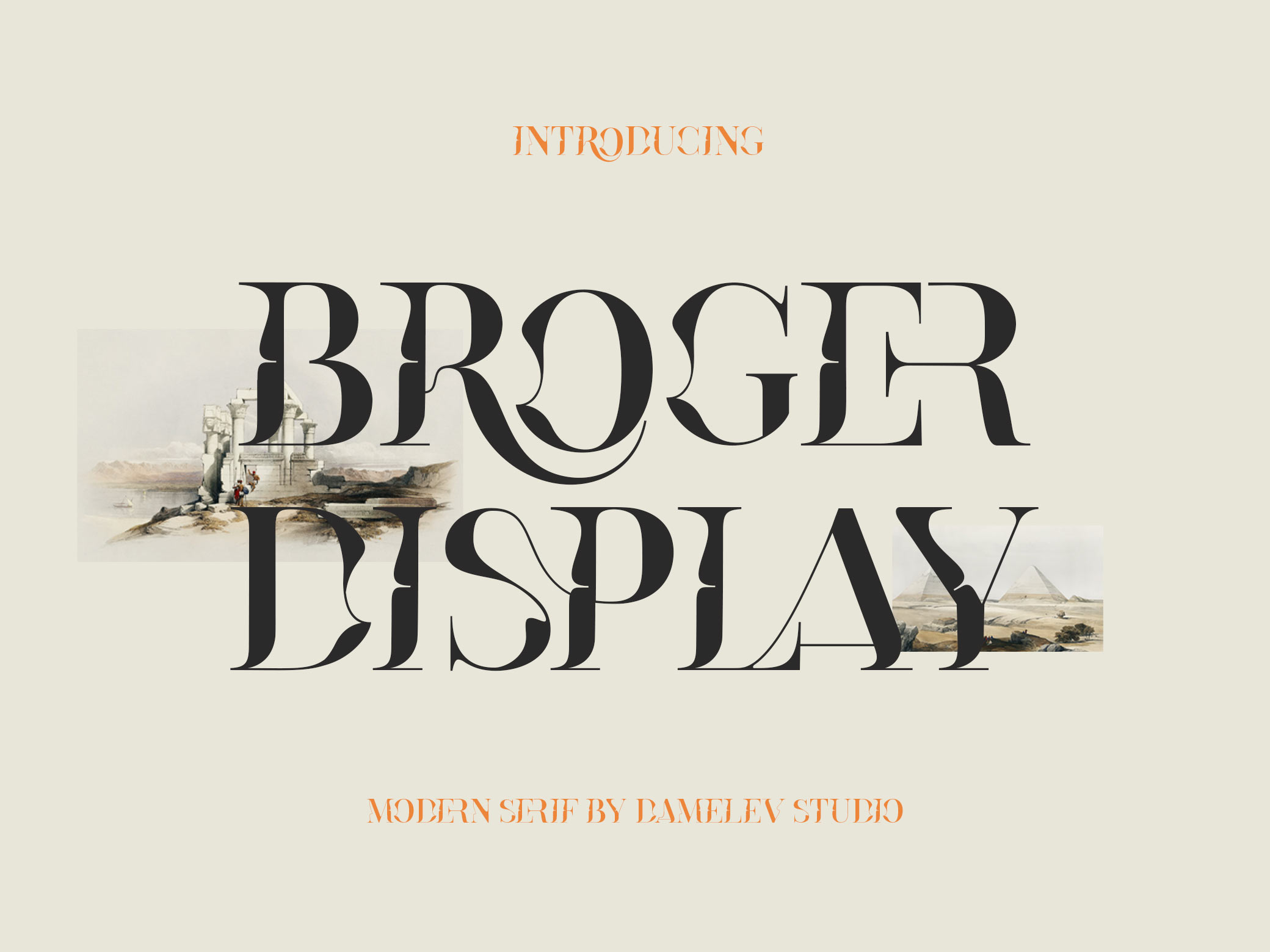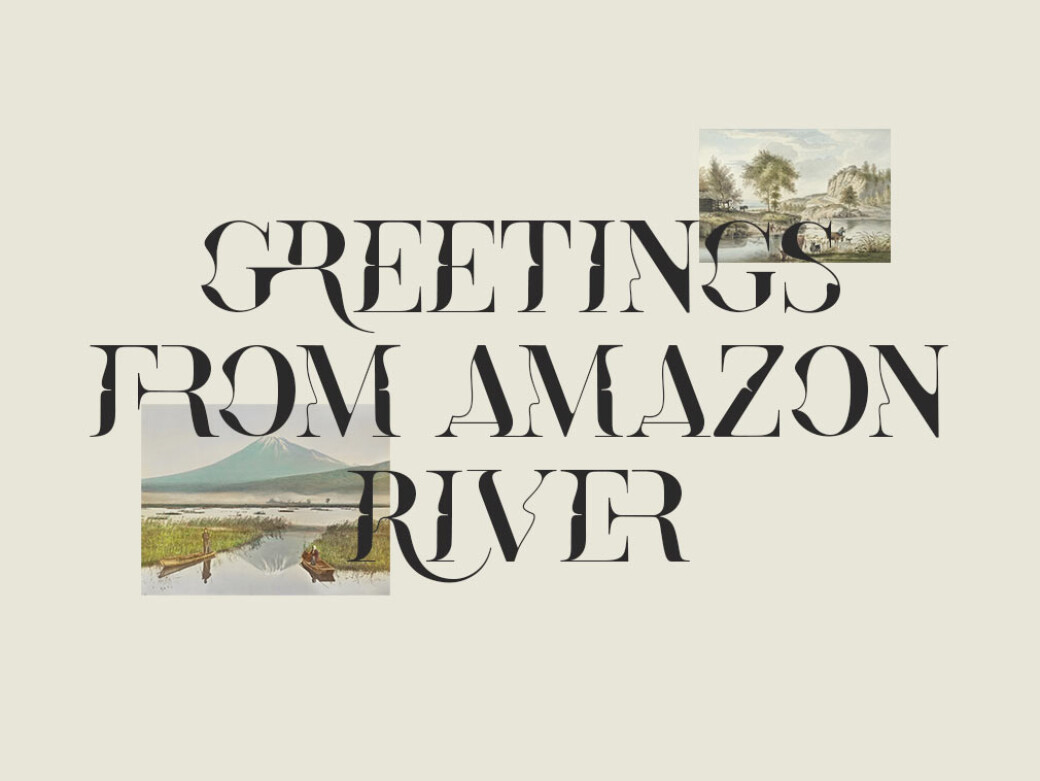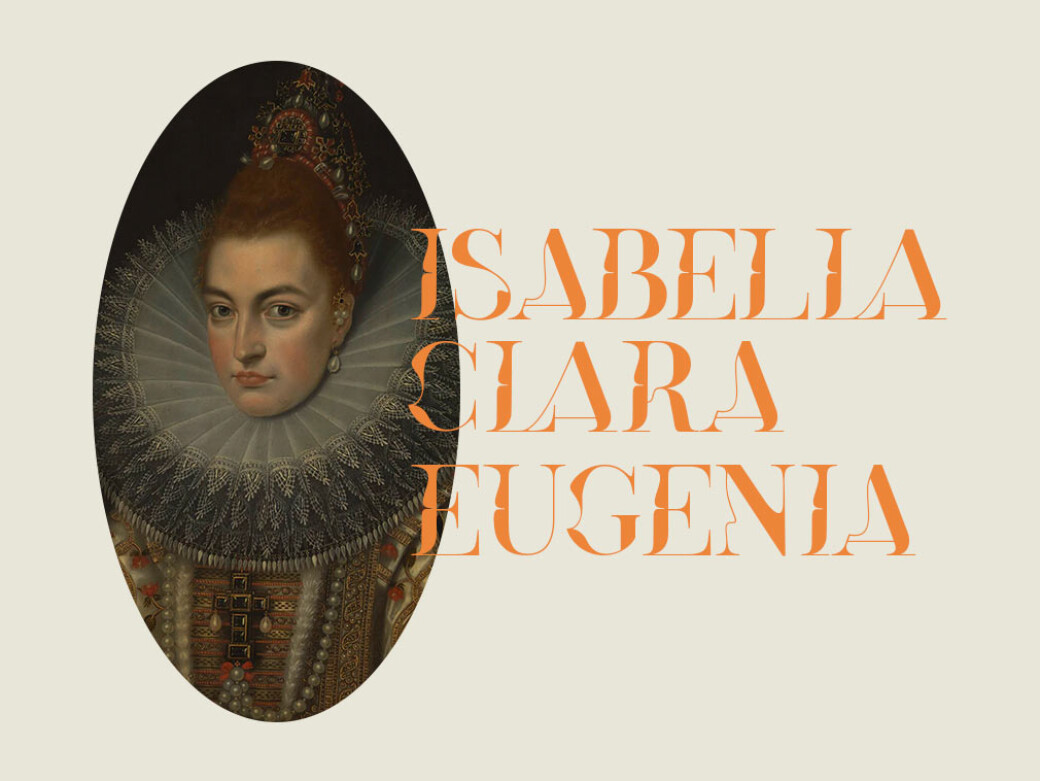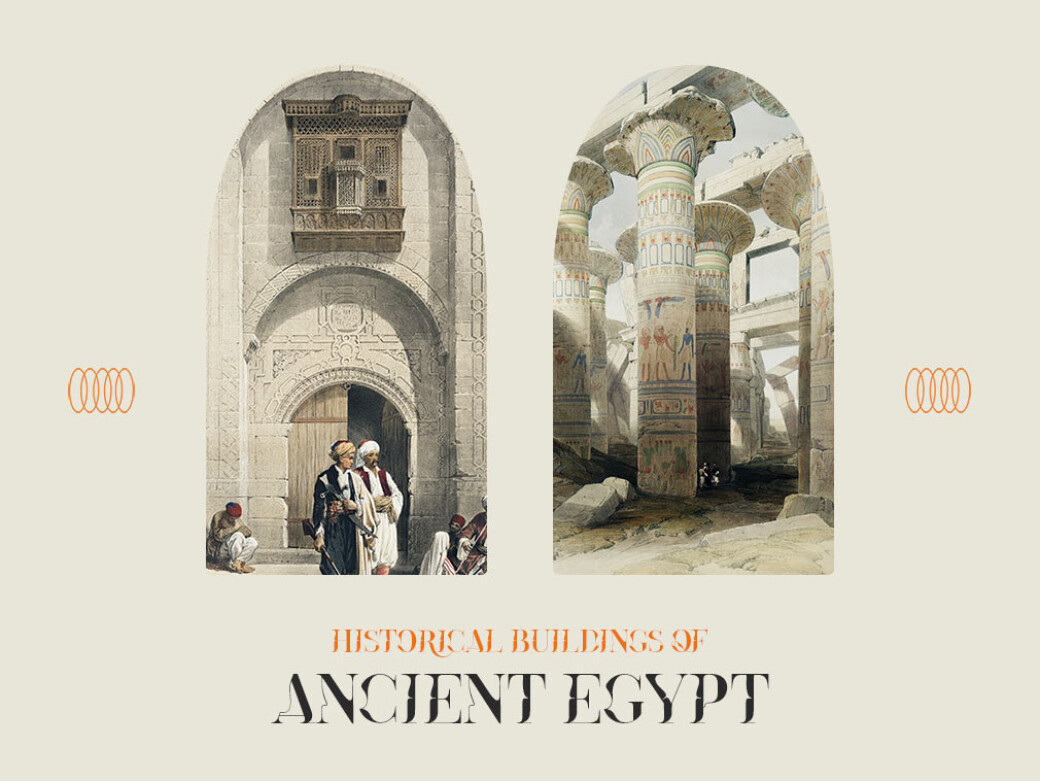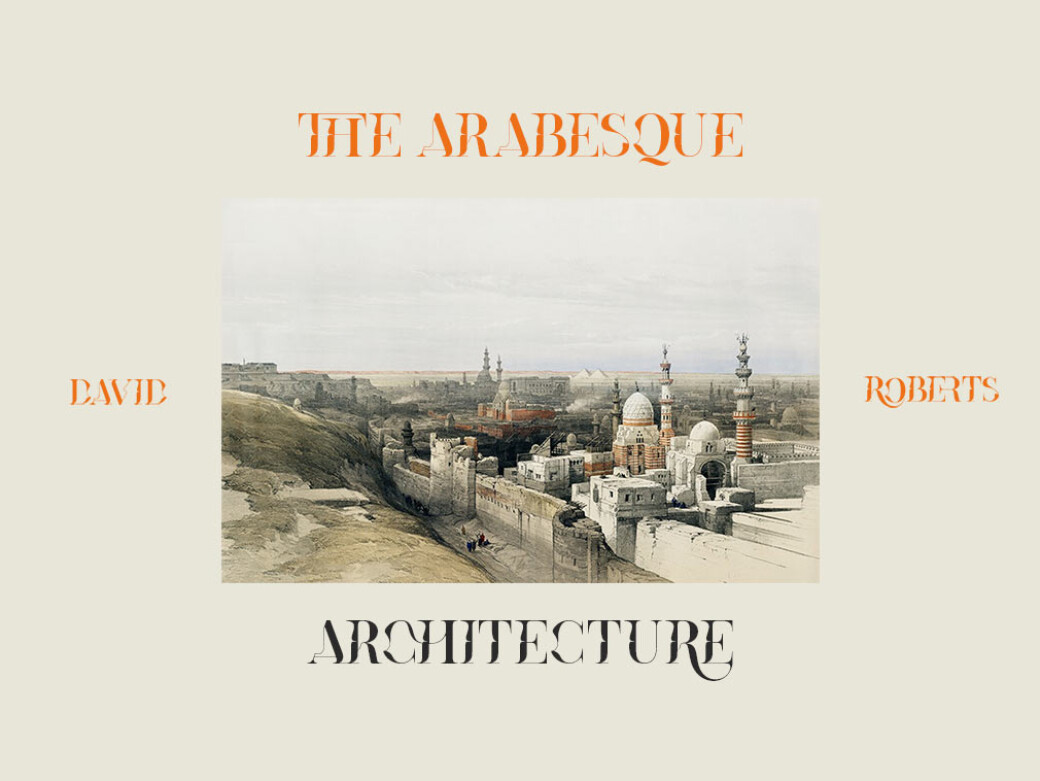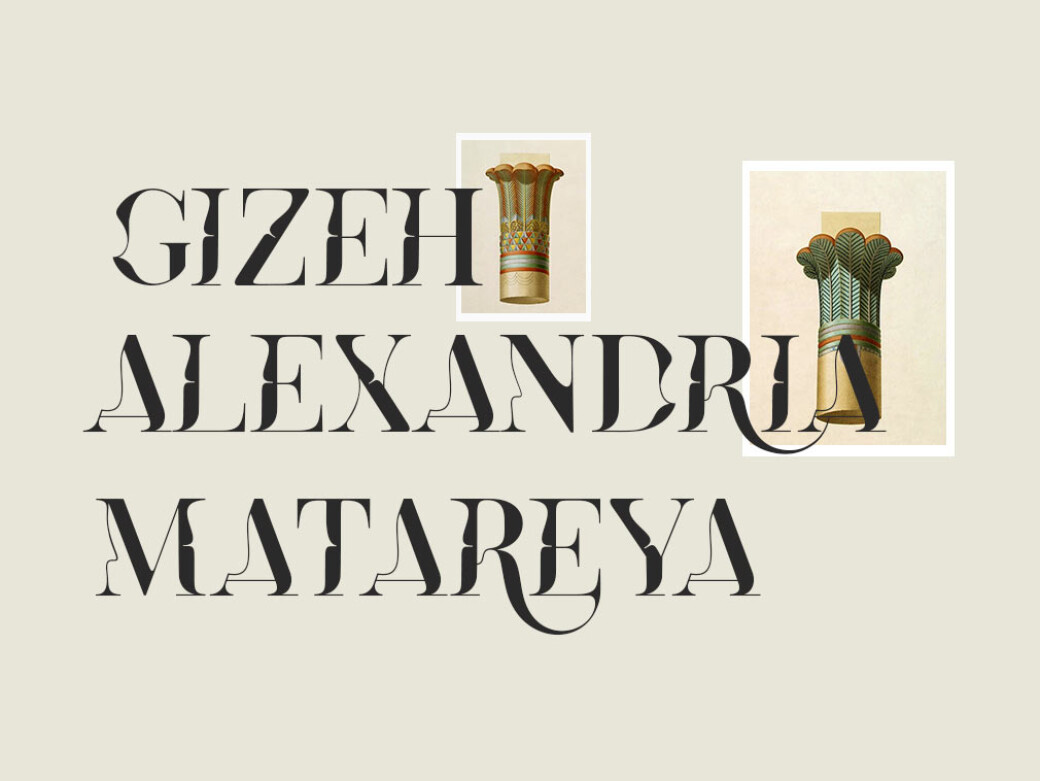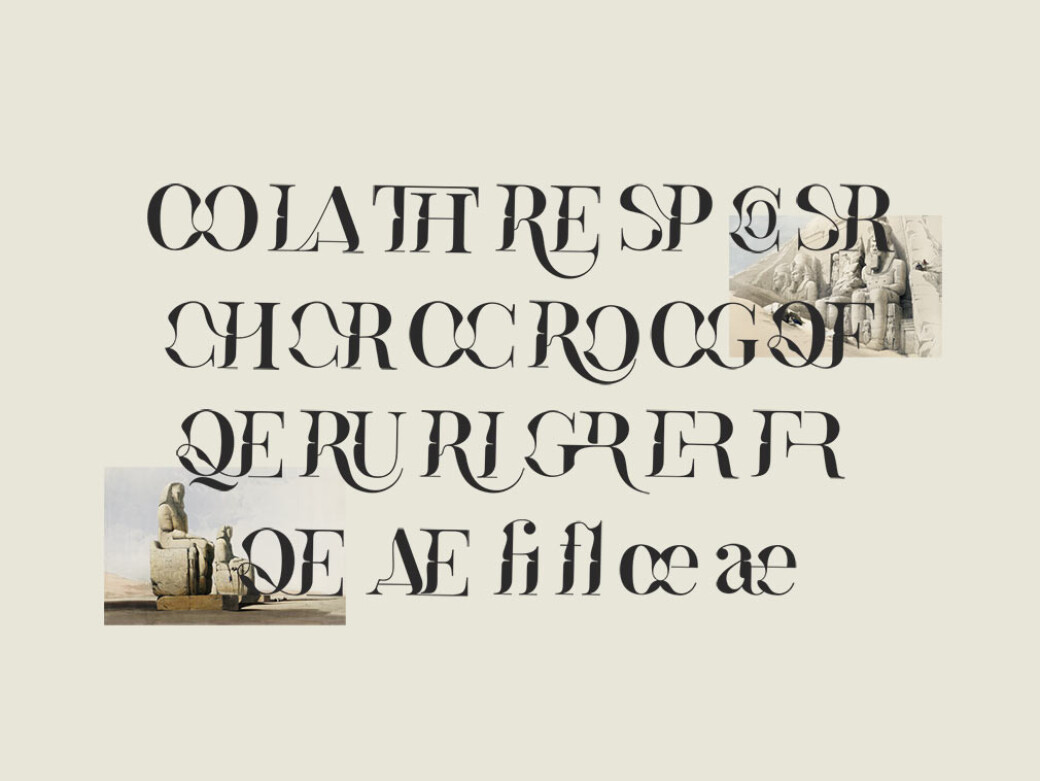
Broger Display Font
Find the display font with a "twisted shape", that gives a headline an elegant appearance with luxury, exuberance and beauty. It can be adapted to any project: from print-ready ones to digital typography-requiring.Broger display font is a little hard to read in small sizes but be sure it would look great at medium and large volumes. Don't forget about its ligatures and multilingual support, which give more characters to play around with. As it was mentioned earlier, this typeface makes it possible to present logotypes, branding and identities, attention-getting headlines, album covers, product design, clothing concepts and print-oriented pieces.